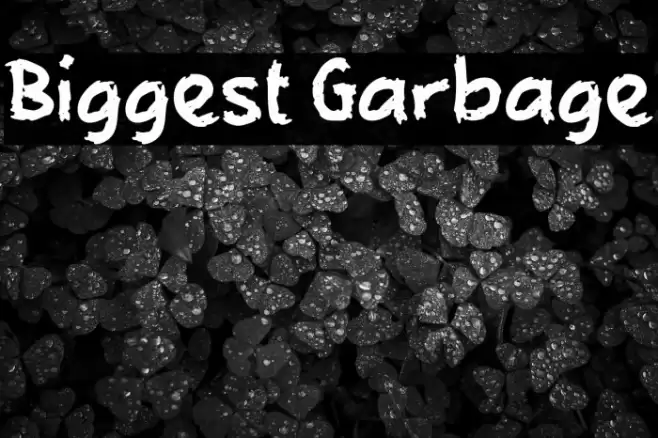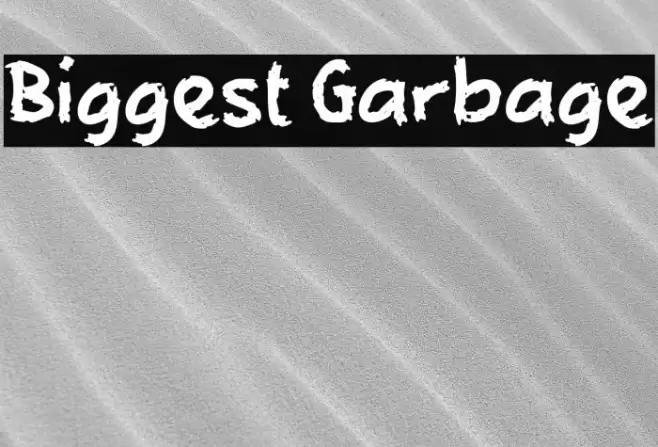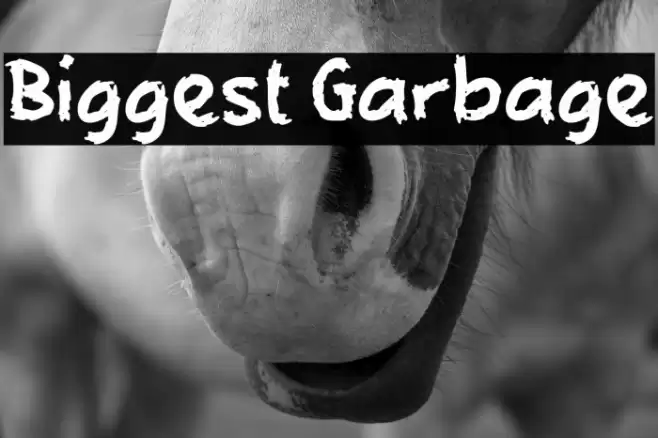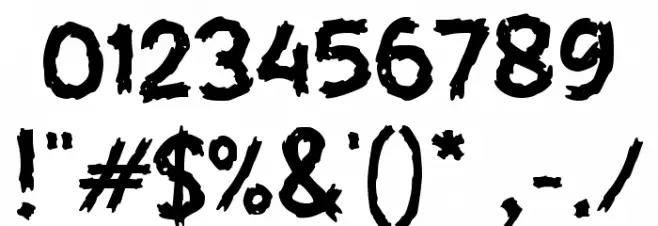
Biggest Garbage Font
Biggest Garbage Description
This font features a bold, rugged appearance with a hand-drawn aesthetic. The characters are irregular and jagged, giving them a distressed, grunge-like quality. The uppercase and lowercase letters maintain a consistent style, with thick strokes and uneven edges that create a dynamic and energetic feel. Numbers and special characters follow the same design principles, ensuring a cohesive look across all elements. This font's unique style makes it stand out, ideal for projects that require a bold and unconventional typeface.
A bold, rugged, hand-drawn font with a distressed, grunge-like appearance from Uncategorized fonts.
- Font: Biggest Garbage
- Proposed Projects: Ideal for album covers, posters, streetwear branding, and edgy graphic design projects.
- Overall Style: Grunge, Hand-drawn